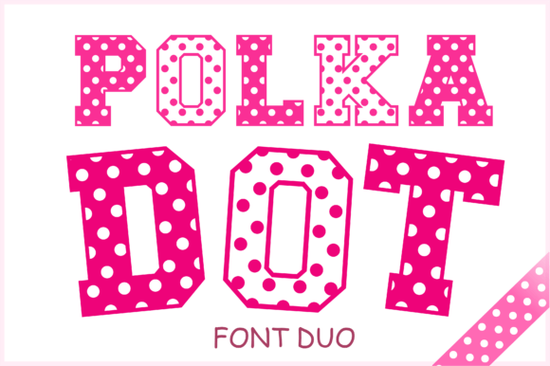
If you're looking for a playful, easy-to-use font that works across print and digital projects especially for kids’ themes, parties, or cheerful branding the Polka Dot Duo Font is a solid choice. It’s not overly complex or trendy in a fleeting way; it’s simply friendly, legible, and designed to hold up well at different sizes and on different materials. Whether you’re making birthday invitations, baby shower decor, or labels for a small-batch kids’ clothing line, this duo delivers consistent charm without sacrificing readability.
What’s actually included and why it matters
The Polka Dot Duo Font comes as two complementary styles: one with bold, dot-dotted letters and another with clean outlines so you can layer them, pair them, or use each on its own. Both include full uppercase and lowercase alphabets, numerals, punctuation, and basic symbols. No missing accents or awkward substitutions.
Where does it work best?
This isn’t a font meant for body text in a novel or legal disclaimer. It shines where personality and clarity both matter:
- Birthday party kits Invitations, cupcake toppers, banner letters, and photo booth props all benefit from its bouncy rhythm.
- Children’s product packaging Think stickers, soap labels, or fabric tags. The bold shapes scale cleanly, even on tiny surfaces.
- Scrapbooking and paper crafts Because the SVG and PNG versions include individual letters, you can easily recolor or resize single characters without losing quality.
- Print-on-demand designs Works well for mugs, onesies, and tote bags where whimsy reads clearly at arm’s length.
How it compares to other playful fonts
Unlike some “cute” fonts that rely heavily on thin strokes or excessive swashes, Polka Dot Duo keeps things sturdy. The dots are evenly spaced and sized not random or pixelated so they reproduce well whether you’re printing on kraft paper or cutting vinyl. It also avoids being too juvenile, which helps if your audience includes parents, educators, or gift buyers not just kids.
• Test both styles together first you’ll often get stronger impact by setting a headline in the dotted version and subhead in the outline style.
• When using PNG files for social media graphics, stick to white or light backgrounds. The dots have soft edges that can blur slightly against busy textures.
• If you’re using it for apparel, check how the dots render on fabric mockups. Some printers soften fine details, so consider increasing stroke weight slightly in vector editors if needed.